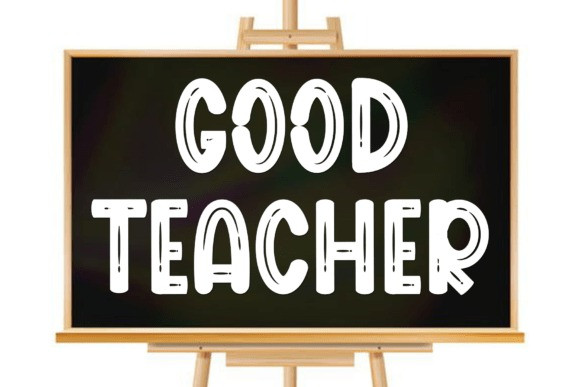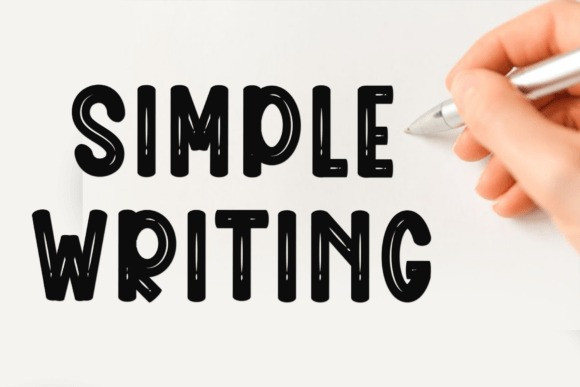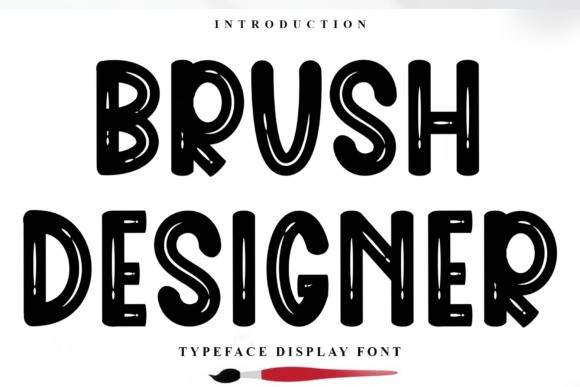
Brush Designer Font
Brush Designer Font  is a bold and artistic display font featuring hand-painted strokes and subtle texture for a creative, handcrafted feel. Perfect for posters, branding, packaging, and designs that need an expressive, brush-made touch.